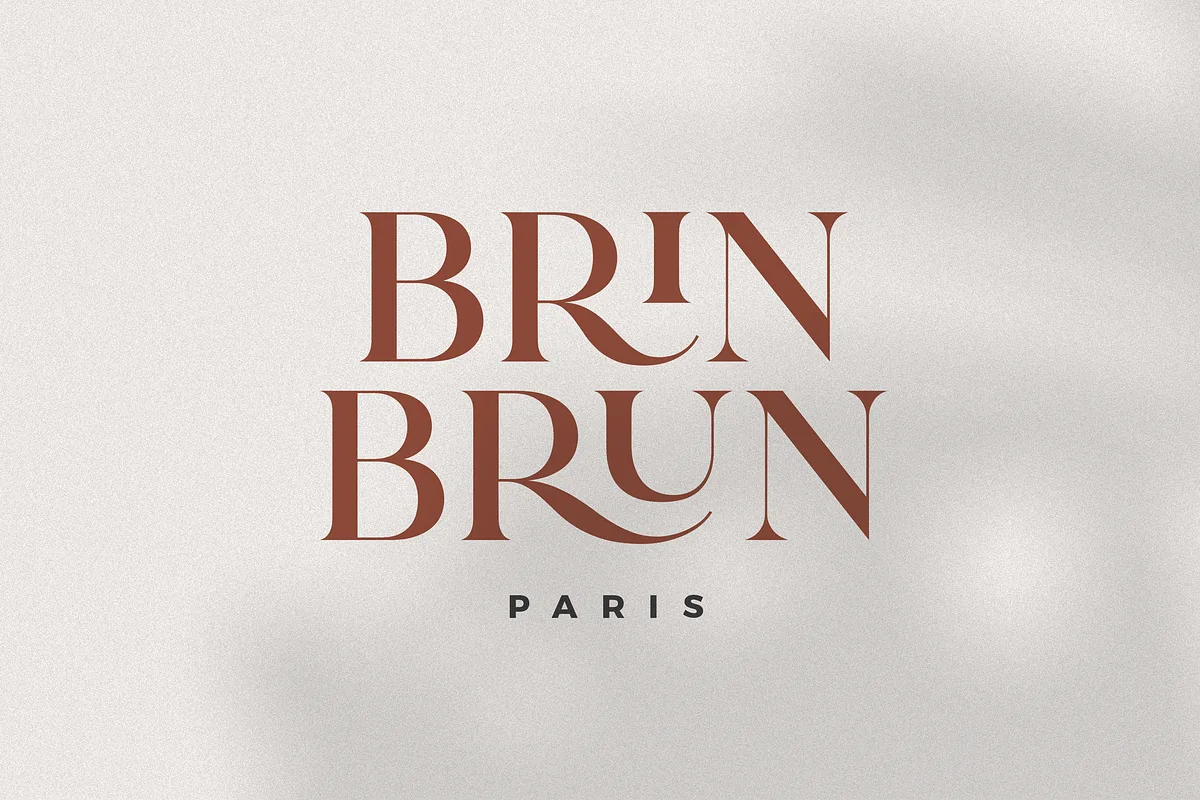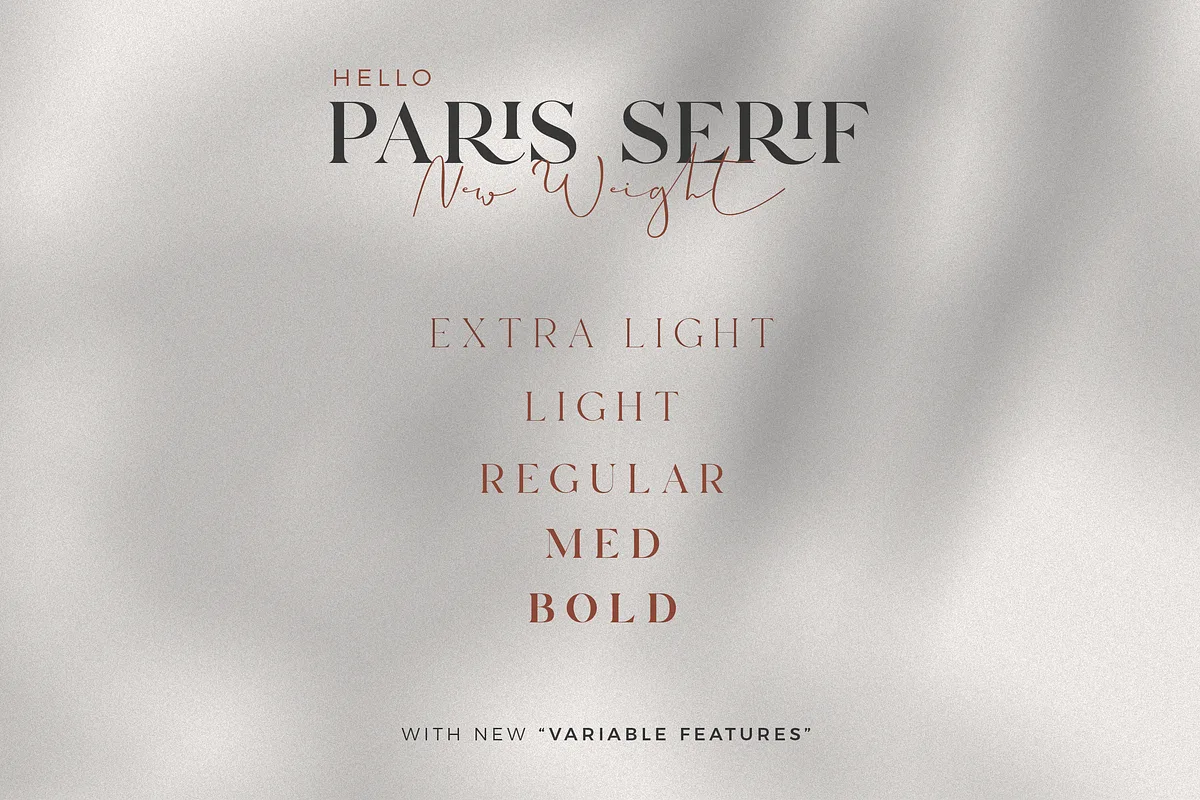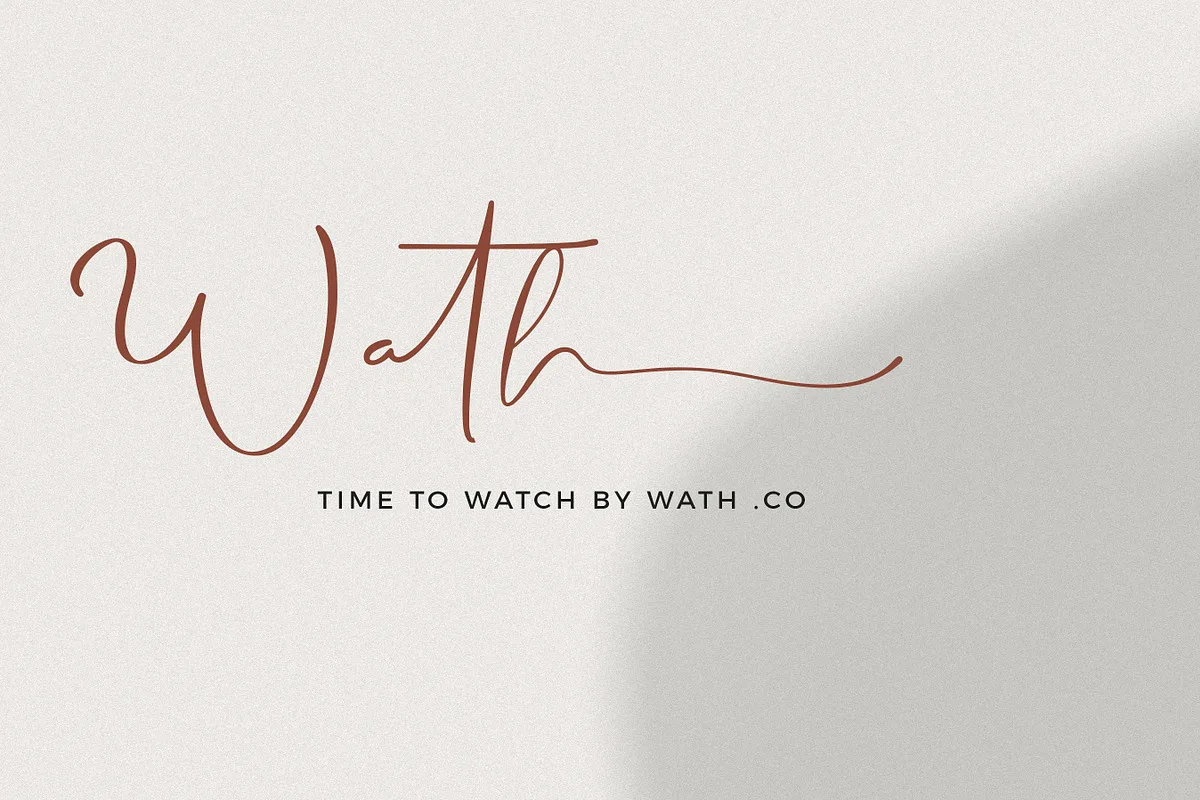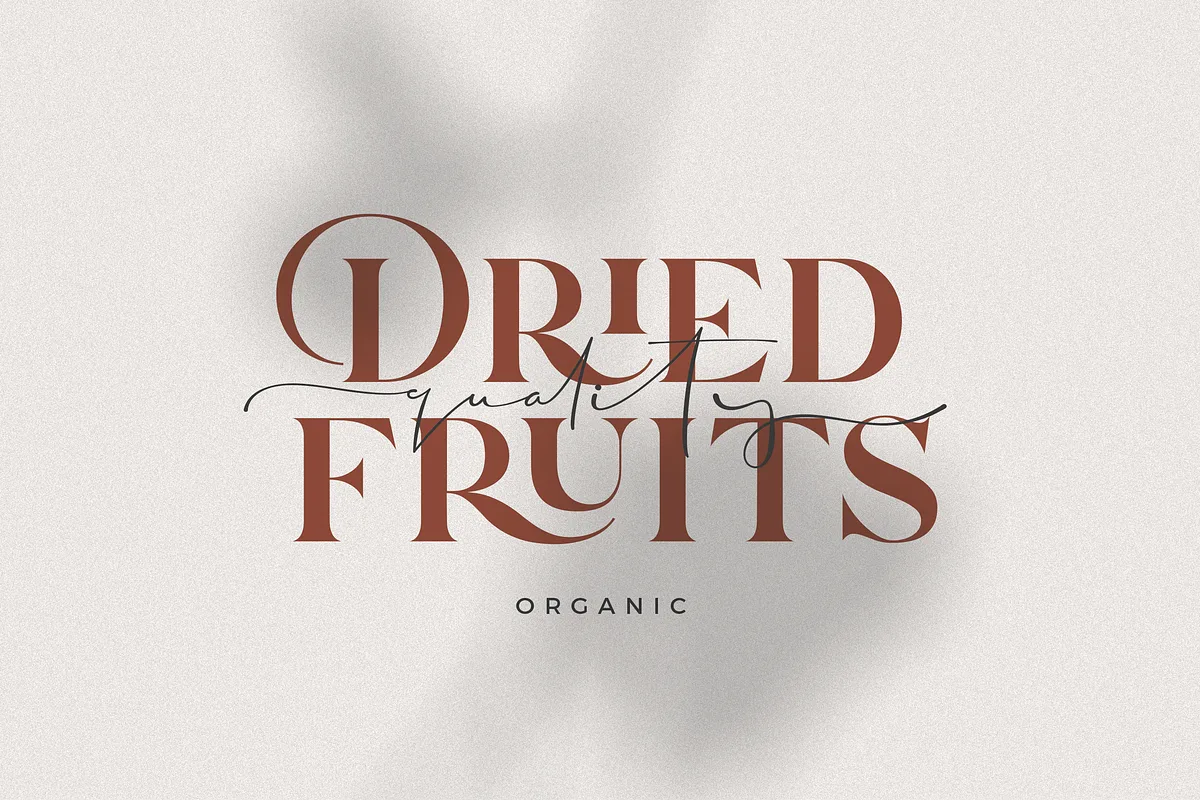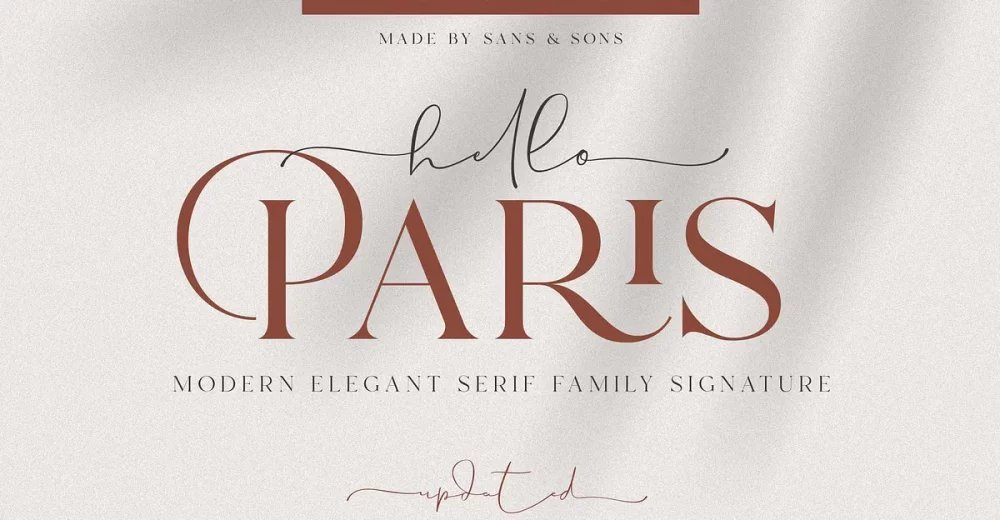
Say hello to our first debut ” Hello Paris ” with Modern Elegant Style. This font is perfect for posters, social media posts, branding, personal projects, etc.
- Variable Feature
- Alternates